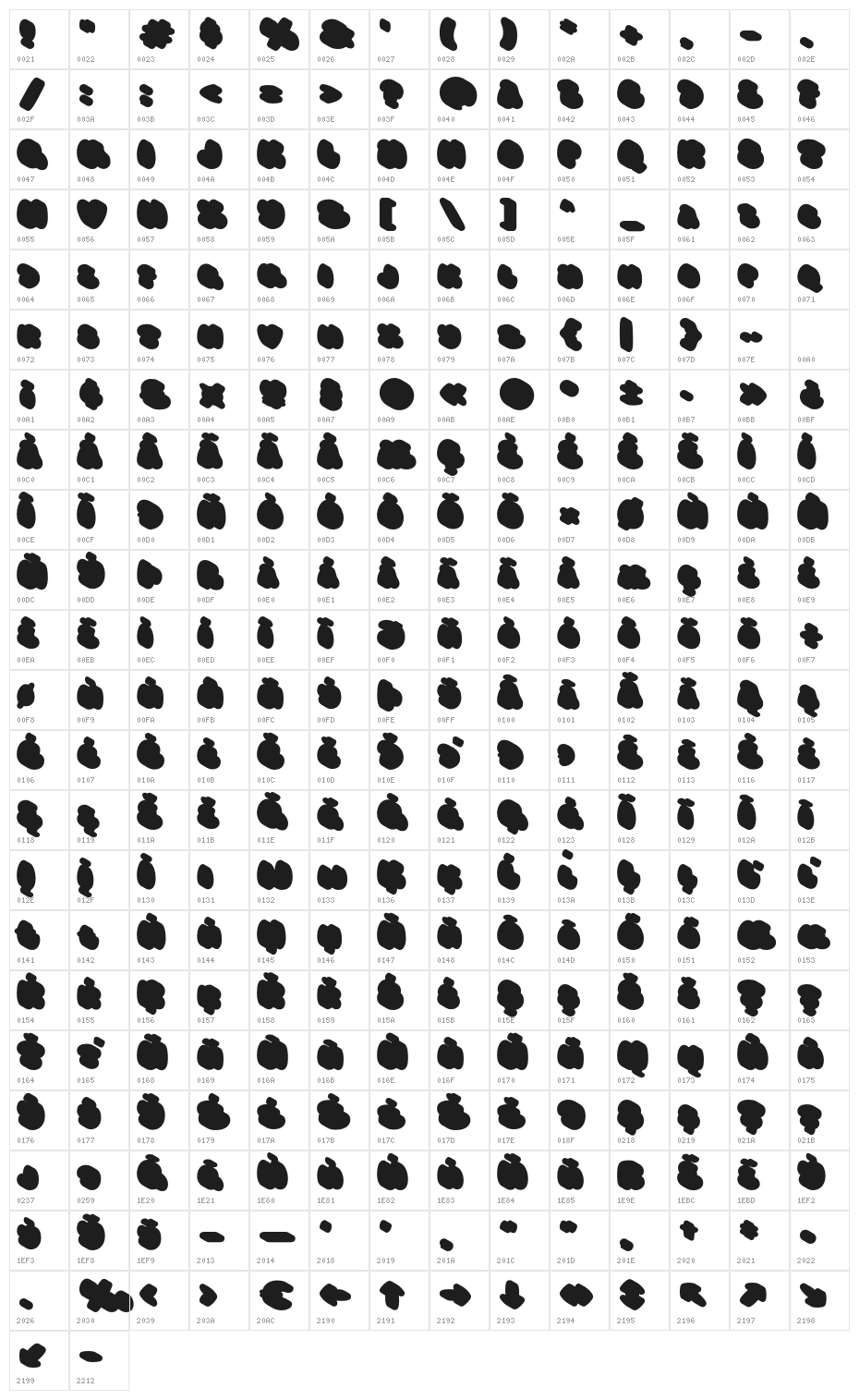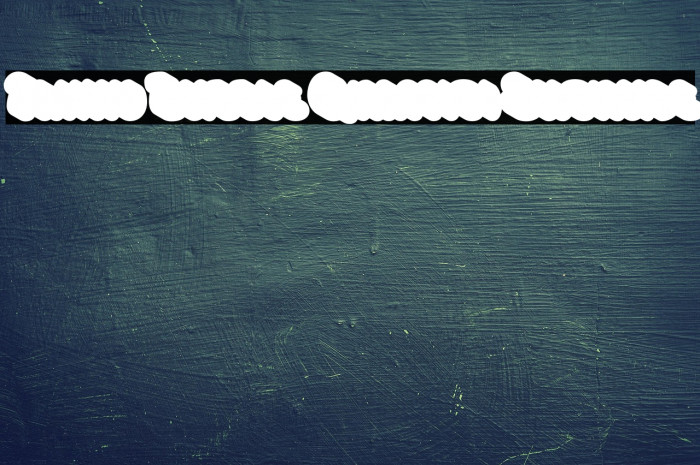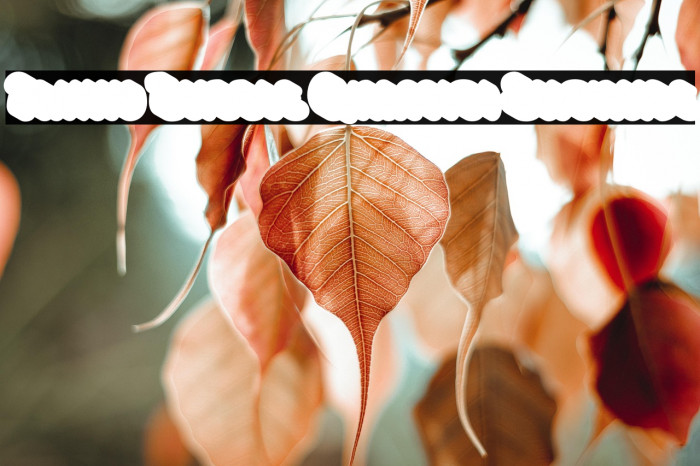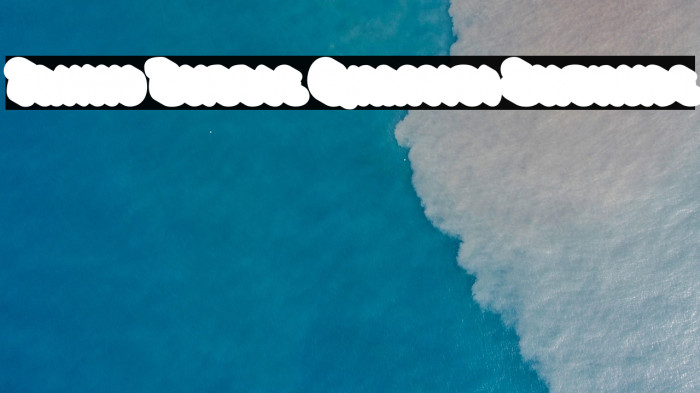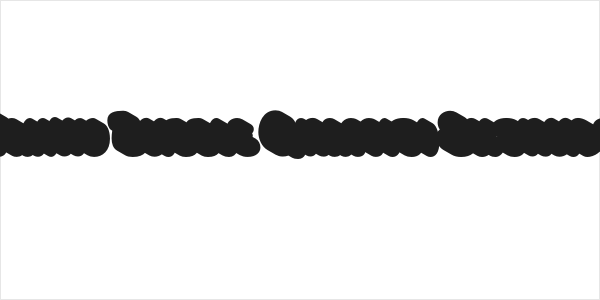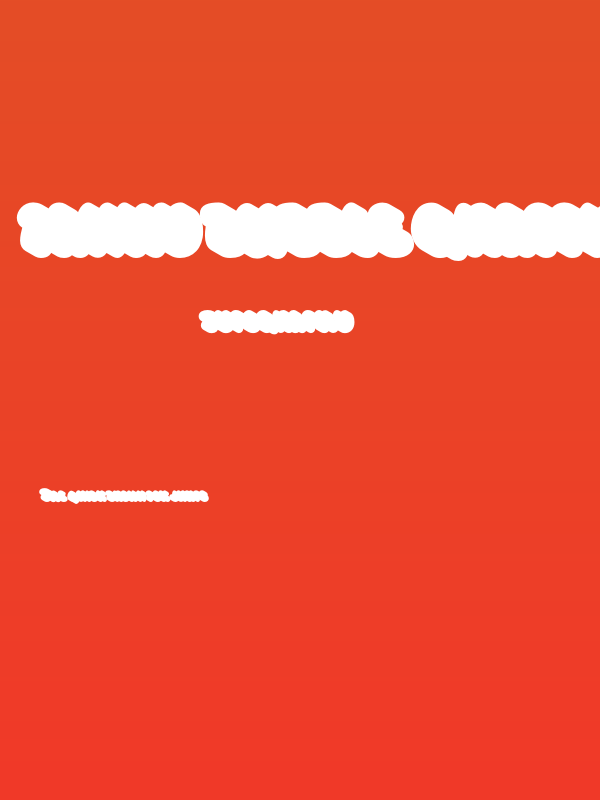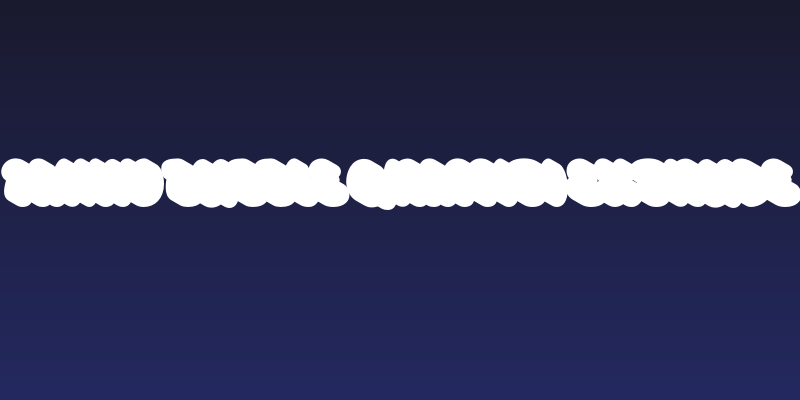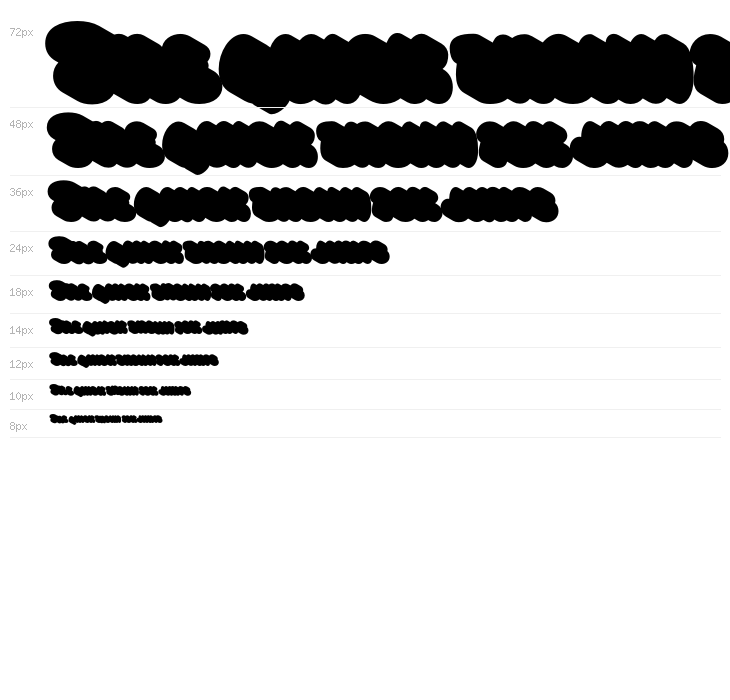
Fanky Bubble Graffiti Extrude Font
Fanky Bubble Graffiti Extrude Description
This font features a bold, bubble-like graffiti style with a three-dimensional extruded effect. The characters are rounded and playful, creating a sense of movement and energy. The thick strokes and exaggerated forms make it stand out, ideal for eye-catching designs. The font lacks traditional serifs, focusing instead on a modern, urban aesthetic. The absence of glyphs for certain characters suggests a focus on a specific stylistic theme rather than comprehensive text coverage.
| Use Case | Logos, Headlines |
| Proposed Projects | Perfect for street art-inspired designs, urban-themed posters, and playful branding projects. |